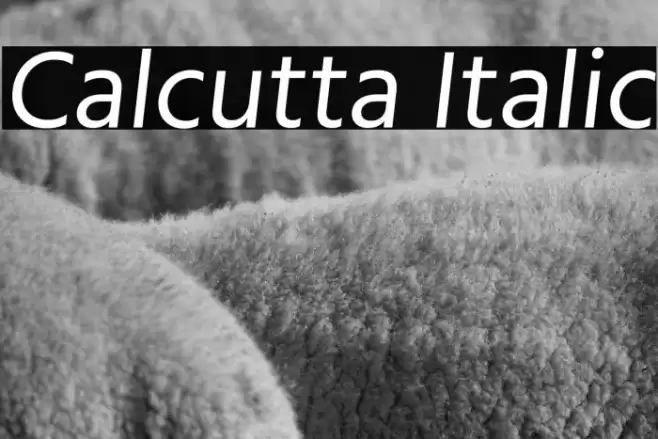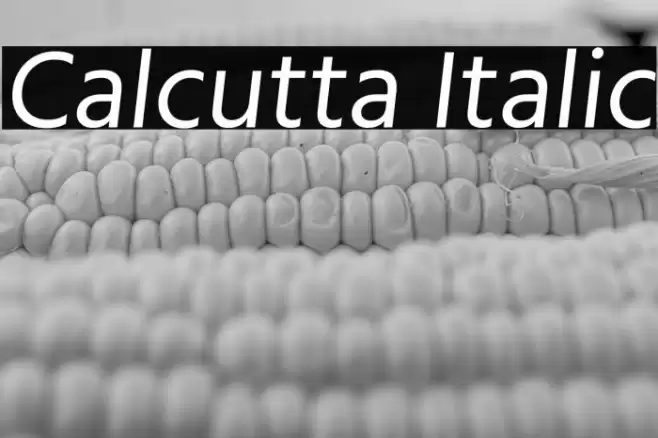
Calcutta Italic Font
Calcutta Italic Description
This font features a sleek and modern italic style, characterized by its clean lines and slightly slanted letters. The uppercase and lowercase letters maintain a consistent flow, providing a harmonious appearance. The numerals are clear and easy to read, making them suitable for various applications. Special characters are well-defined, adding versatility to the font's use. The overall design is minimalistic yet elegant, making it ideal for contemporary projects.
A modern italic font with clean lines and a sleek appearance from Sans Serif fonts.